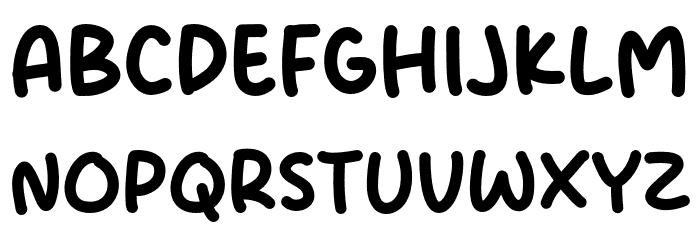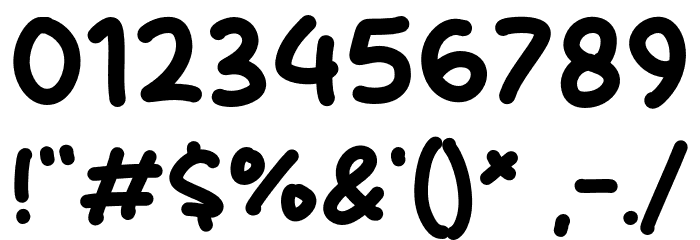
Apple Baker Font
This font features a playful and bold handwritten style, characterized by its rounded and slightly irregular letterforms. The strokes are thick and consistent, giving it a friendly and approachable appearance. The letters are well-spaced, ensuring readability while maintaining a casual aesthetic. The numerals and special characters follow the same design principles, making the font versatile for various uses. Its informal style makes it suitable for projects that require a personal touch or a fun, engaging look.
A bold, playful handwritten font with rounded, consistent strokes.
- Font: Apple Baker
- Proposed Projects: Ideal for children's books, casual branding, greeting cards, and playful posters.
- Category: Handwritten
- Overall Style: Playful
- Use Case: Headlines, Logos, Informal Text